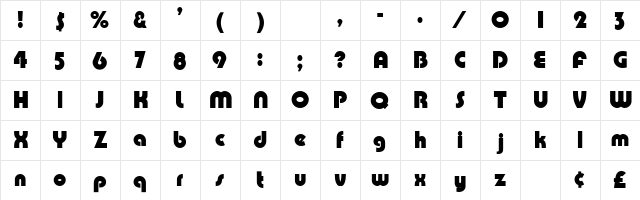
Celesti Display SSi Regular
Design Context for Celesti Display SSi Typeface
Celesti Display SSi brings ornamental detail and strong personality to headlines and identities, where visual impact matters more than quiet functionality.
Font Pairing: Pair with a clean neutral sans-serif for body copy to let Celesti Display SSi's character lead without overwhelming the composition.
Pro Tip: Treat Celesti Display SSi as the centrepiece of your typographic hierarchy. One strong heading set in a decorative face can carry an entire layout.